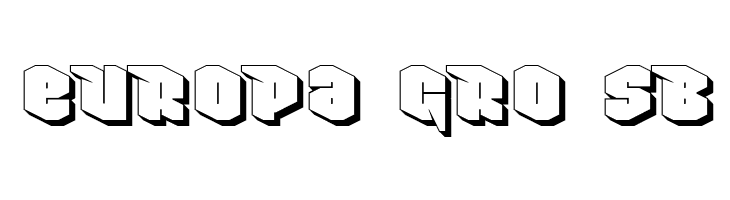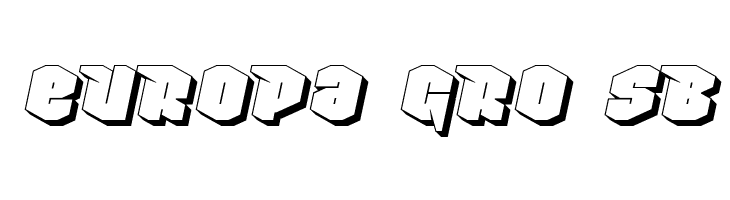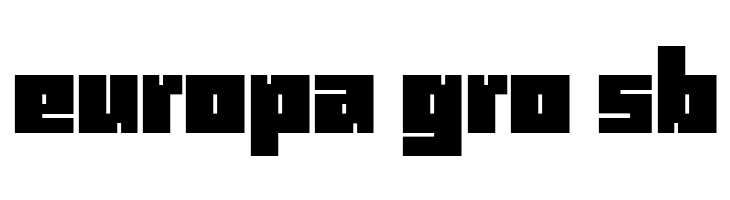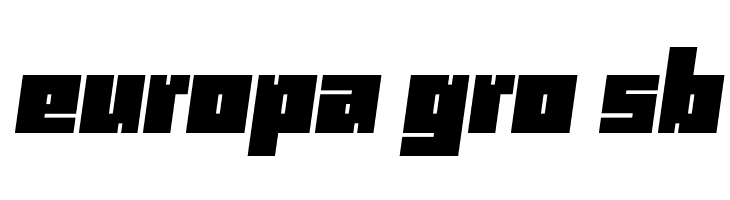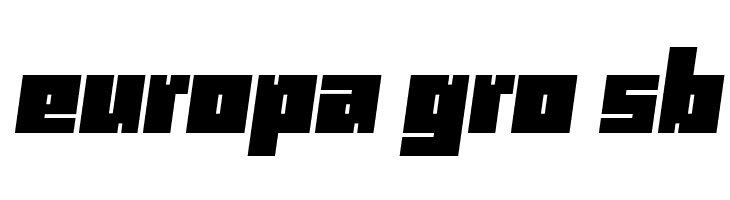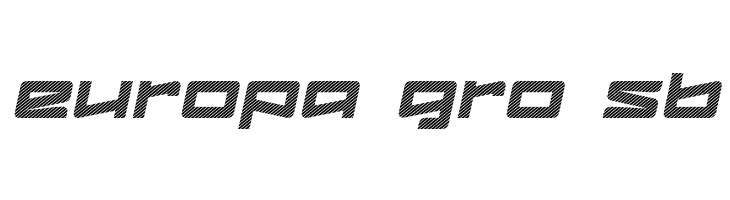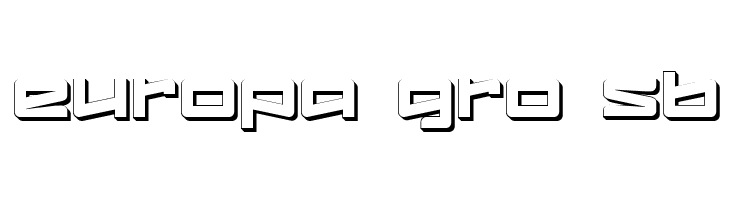
• NowyGeroy4FShadow-Italic
A bold, three-dimensional font with a shadow effect and italic style, perfect for attention-grabbing designs.
• Nowy Geroy 4F Shadow
A bold, 3D shadow font with geometric, blocky characters.
• Nowy Geroy 4F Shadow Italic
A bold, 3D shadowed font with an italic slant, perfect for dynamic designs.
• NowyGeroy4FShadow
A bold, three-dimensional font with shadow effects, combining retro and modern styles.
• Blackentina 4F
A bold, geometric font with a blocky, retro-modern style.
• Blackentina4F
A bold, geometric font with strong, angular lines and a modern aesthetic.
• Blackentina4F-Italic
A bold, angular font with a dynamic, geometric style.
• Blackentina 4F Italic
A bold, angular, and italic font with high contrast and geometric shapes.
• LogofontikStripes4F-Italic
A dynamic, striped, italic font with a modern and bold appearance.
• Logofontik Extruded 4F
A bold, extruded font with a three-dimensional, geometric style.